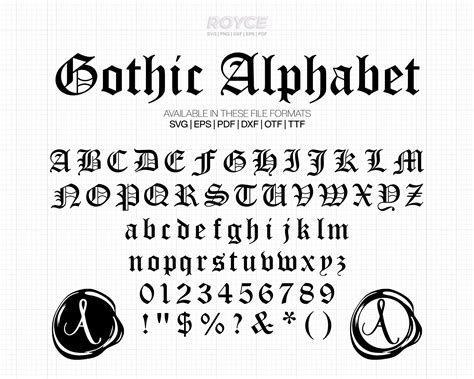
Discover the elegant Gothic Font J. Perfect for medieval typography, calligraphy, and vintage graphic design projects. Download this classic blackletter style.